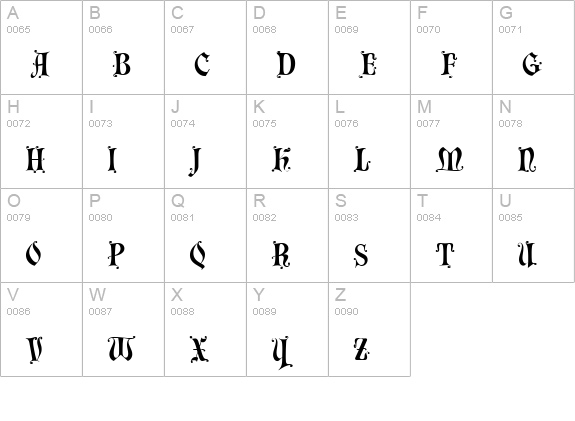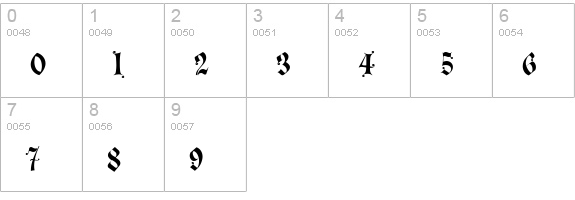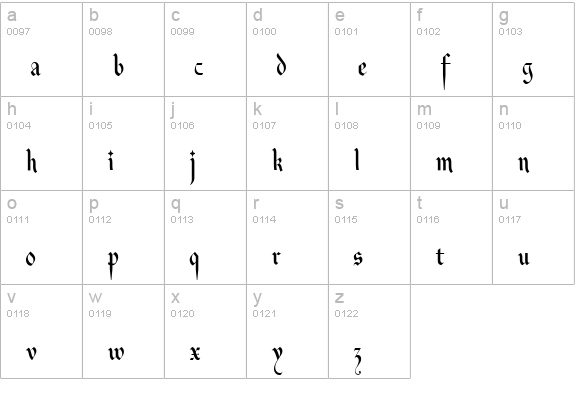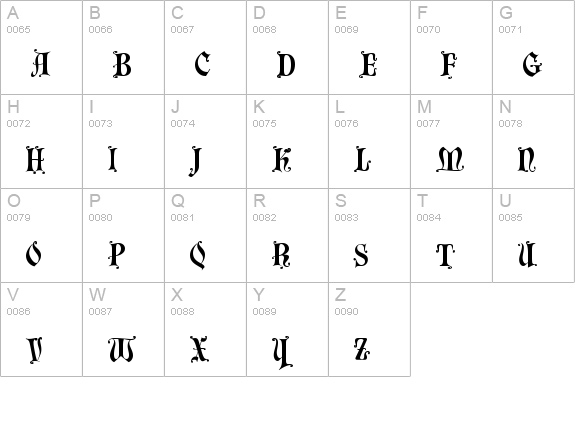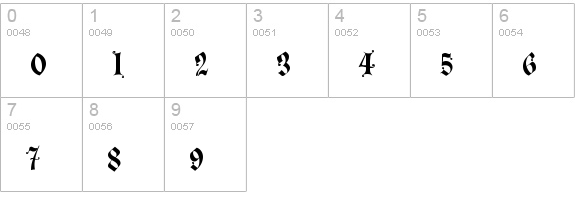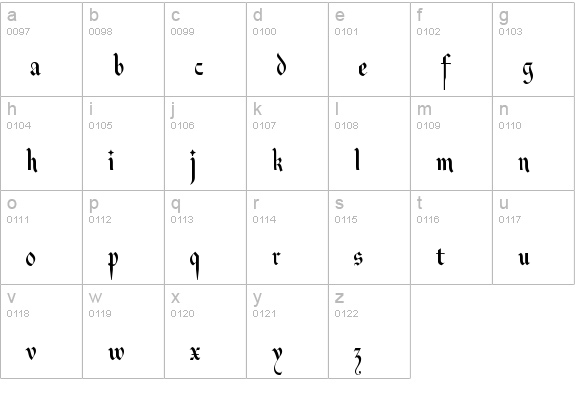
Kynges X NF Font Details
Kynges X NF is a captivating and stylish font that exudes regal elegance and modern sophistication. Its bold and distinctive letterforms make a powerful statement, perfect for titles, headlines, logos, and other impactful design projects. The unique design elements in Kynges X NF add a touch of luxury and exclusivity to any creative endeavor. Whether you're working on a branding project, poster design, or website layout, Kynges X NF will elevate your work to the next level with its commanding presence and refined aesthetics. This versatile font is sure to grab attention and leave a lasting impression on viewers. Best of all, Kynges X NF is available for free download at FontsMarket.com. Now you can access this premium font without any cost, making it a valuable addition to your design toolkit. Don't miss out on the opportunity to enhance your projects with the majestic beauty of Kynges X NF. Download it today and let your creativity shine!